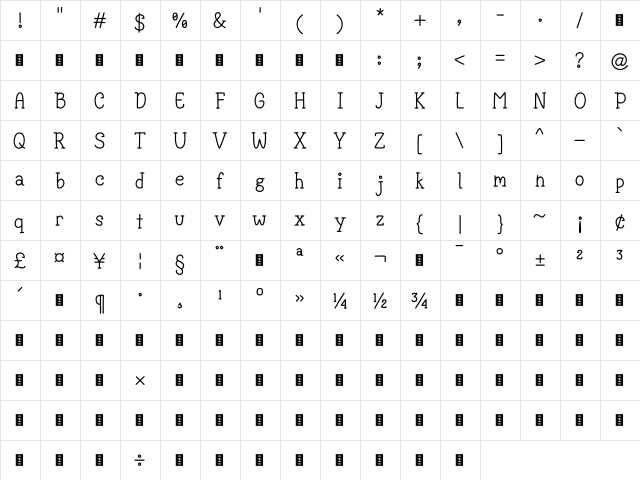
Christina Abigail_DEMO_Personal Regular
| Designer | Angga Yudhistira |
Design Context for Christina Abigail_DEMO_Personal Typeface
Christina Abigail_DEMO_Personal is a composed and adaptable typeface that performs quietly and consistently across a wide range of design contexts.